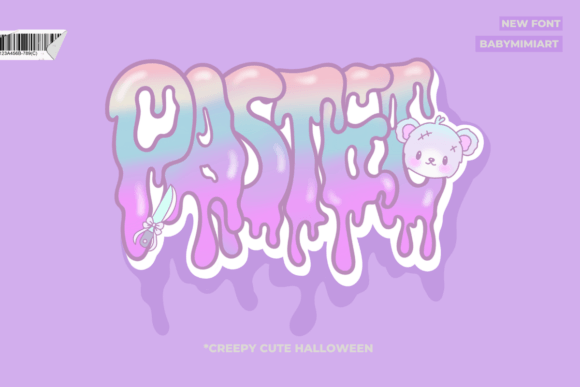
Introducing Pastel Font, the ultimate font for Procreate that will take your designs to a whole new level of spooky-cute! Created by the talented Babymimiart, this font embraces the mesmerizing twist of pastel goth aesthetics, making it perfect for any Halloween-inspired project.
Are you tired of the same old spooky fonts that lack creativity? Look no further! Pastel Font brings a refreshing and captivating touch to your designs with its haunting dripping effect. This unique feature sets it apart from other fonts, instantly grabbing attention and making your projects stand out in the crowd.
But that's not all! Pastel Font gives you the power to incorporate soft pastel colors into your designs, adding an extra layer of enchantment. Imagine the possibilities of combining dark and cute elements in your party invitations, flyers, or social media graphics. Your audience won't be able to resist the delightful blend of darkness and cuteness that this font brings to the table.
With Pastel Font, you're not just getting a font, but an entire experience. Let your creativity run wild as you explore the endless possibilities this font offers. Whether you're a professional designer or just starting out, this font is incredibly user-friendly and easy to use with Procreate.